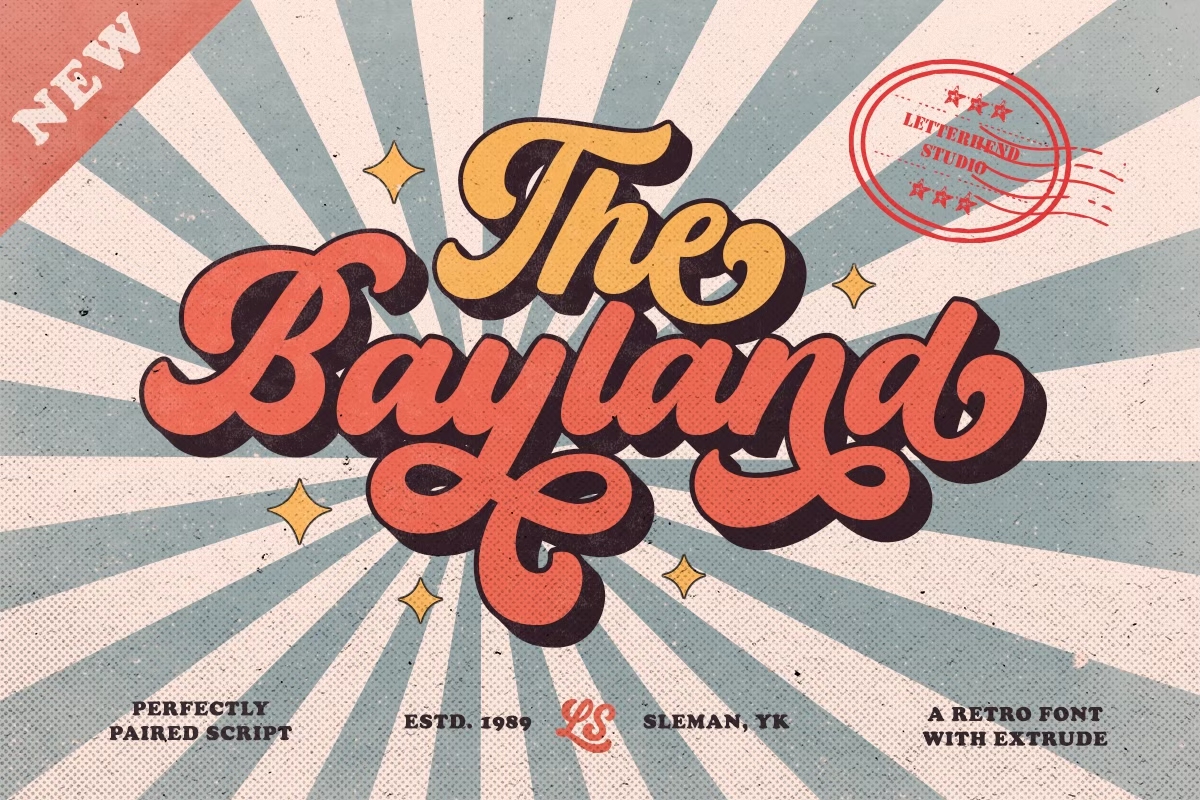
The Bayland - Retro Font
The Bayland - Retro Font is perfect for vintage surf shop branding, classic beachside restaurant signage, retro coastal tourism marketing, nostalgic beach resort promotions, throwback summer festival posters, vintage seaside arcade graphics, classic boardwalk business logos, retro beach club materials, nostalgic coastal lifestyle brands, and vintage marine equipment packaging. This coastal typeface brings authentic retro charm to vintage beach photography studios, classic surf culture merchandise, retro beachfront property marketing, nostalgic coastal event planning, and throwback maritime heritage organizations.
The Bayland - Retro Font is exciting because it perfectly captures the laid-back nostalgia and timeless appeal of classic coastal culture through its authentically crafted retro letterforms. The font features characters with vintage coastal proportions and classic seaside details that evoke the golden age of beach culture, classic surf magazines, and nostalgic boardwalk signage from decades past. Its distinctive construction demonstrates retro coastal authenticity with carefully aged elements that create an immediate sense of vintage beach charm and nostalgic seaside memories. The font's coastal nostalgia and retro authenticity make it perfect for brands seeking to communicate vintage beach culture, coastal heritage, and timeless seaside appeal in their visual communications.
The Bayland - Retro Font family includes various vintage coastal styles: Light, Regular, Bold, Aged, Weathered, Script, Condensed, Extended, Vintage, Classic, Coastal, and Nostalgic variants. Each family member maintains the core retro coastal DNA while offering different levels of vintage charm for diverse throwback design applications. The comprehensive font collection ensures consistent retro branding across vintage coastal campaigns, classic beach products, and nostalgic seaside marketing materials.
Whether you're creating vintage coastal brand identities, designing retro beach marketing materials, developing nostalgic website headers, or crafting throwback seaside promotional campaigns, The Bayland - Retro Font delivers outstanding vintage appeal and coastal authenticity. The font's distinctive retro personality excels in vintage logos, classic packaging design, nostalgic applications, and coastal projects where retro beach charm and vintage seaside culture are essential.